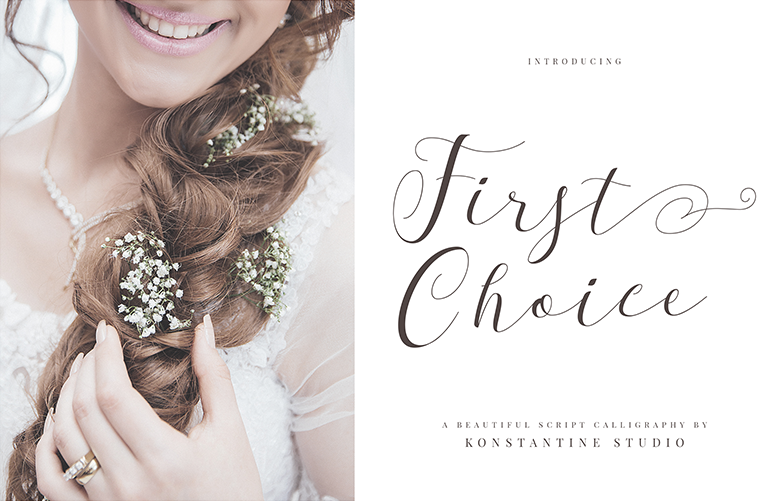
First Choice, a beautiful modern calligraphy script font, with implementation of casual modern contemporary calligraphic style. Perfectly fit for your feminine branding, logo, wedding kits, rustic concept, vintage stuff, fashion, you name it.